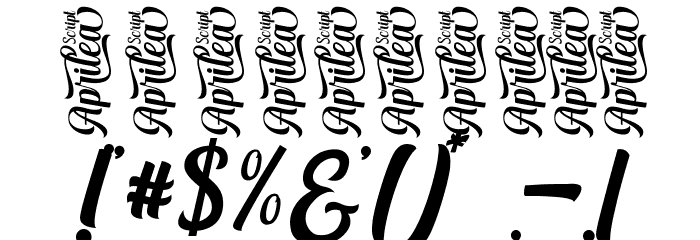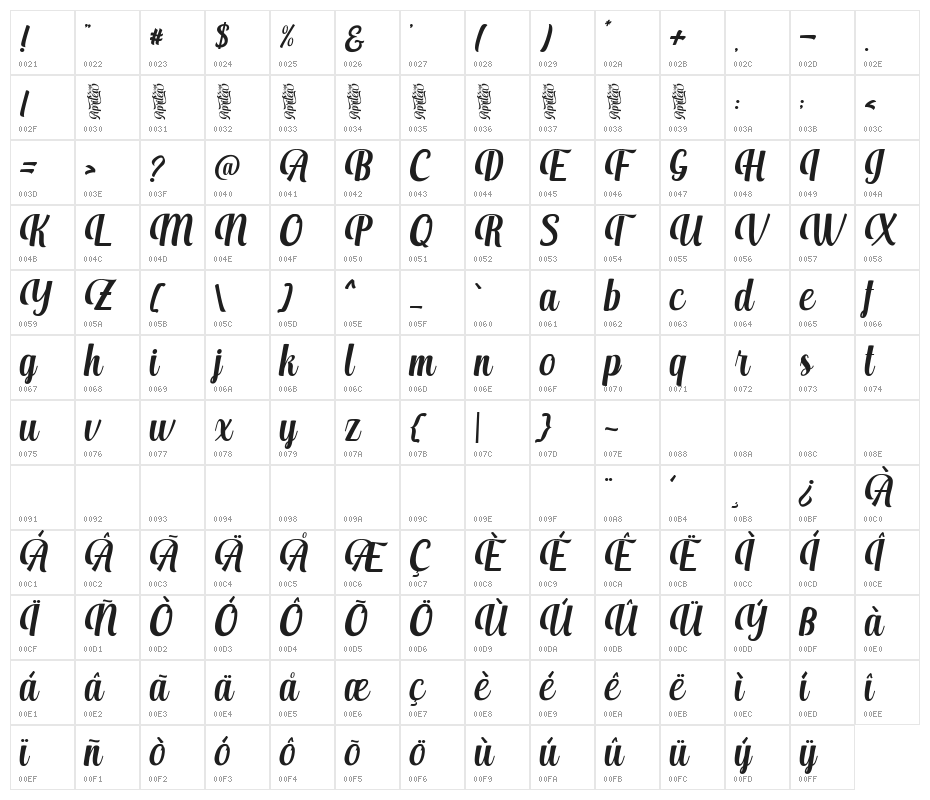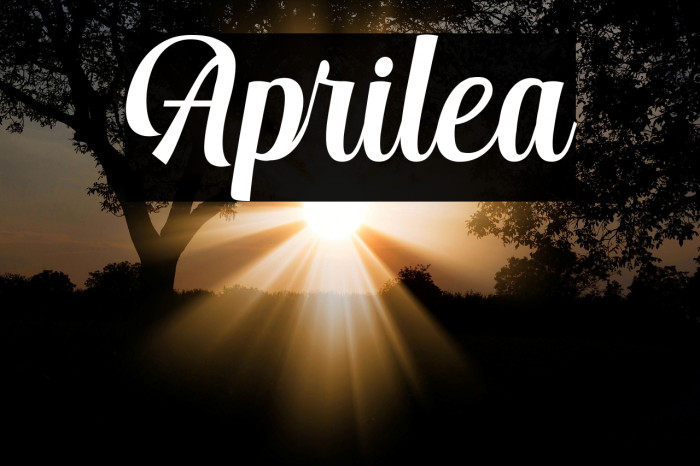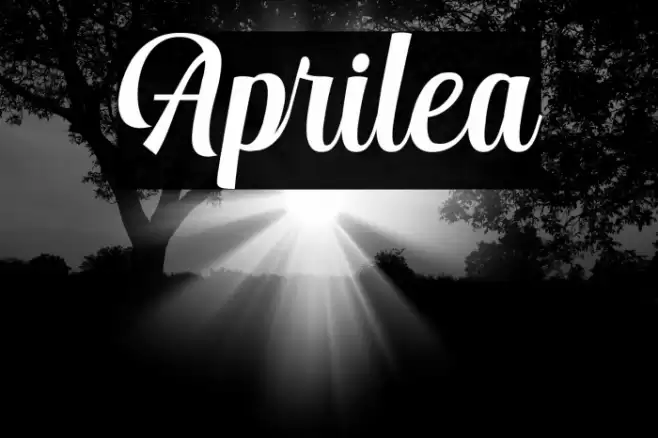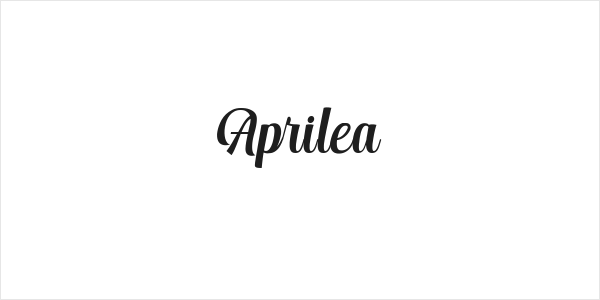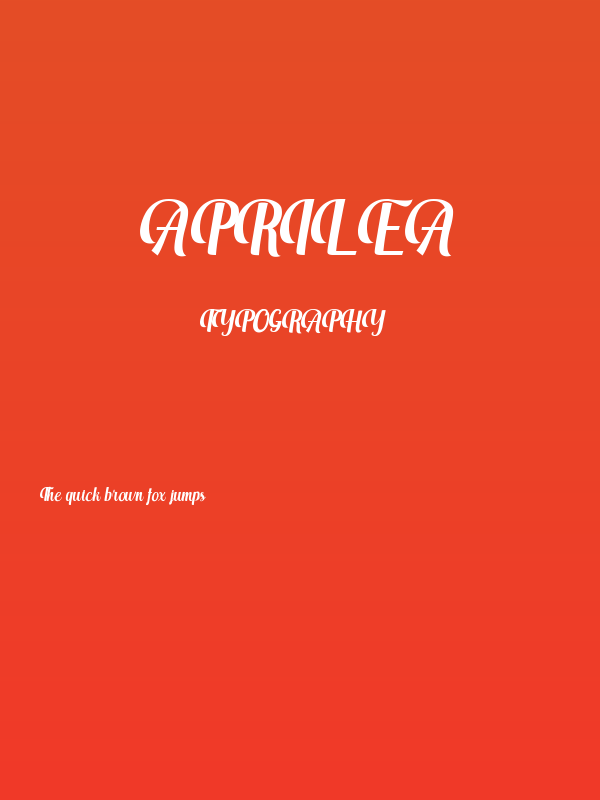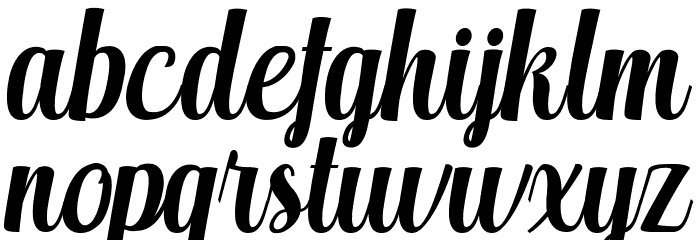
Aprilea Font
Aprilea Description
This font showcases a dynamic and flowing script style, characterized by its elegant and smooth curves. The uppercase letters exhibit a graceful, sweeping motion, while the lowercase letters maintain a consistent fluidity, enhancing readability. The numerals and special characters are crafted with the same attention to detail, ensuring a cohesive look across all glyphs. The font's design is both sophisticated and approachable, making it suitable for a variety of applications. Its balanced weight and moderate contrast in stroke thickness contribute to its versatility, allowing it to stand out in both digital and print media.
| Overall Style | Elegant, Modern |
| Proposed Projects | Ideal for wedding invitations, branding projects, logo designs, and elegant packaging. |